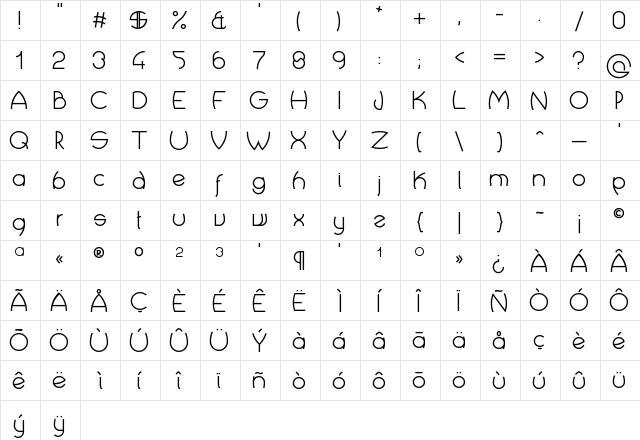
crop types Regular
Design Context for crop types Typeface
crop types takes a measured approach to typography — its balanced proportions and neutral character make it a reliable workhorse for both digital and print work.